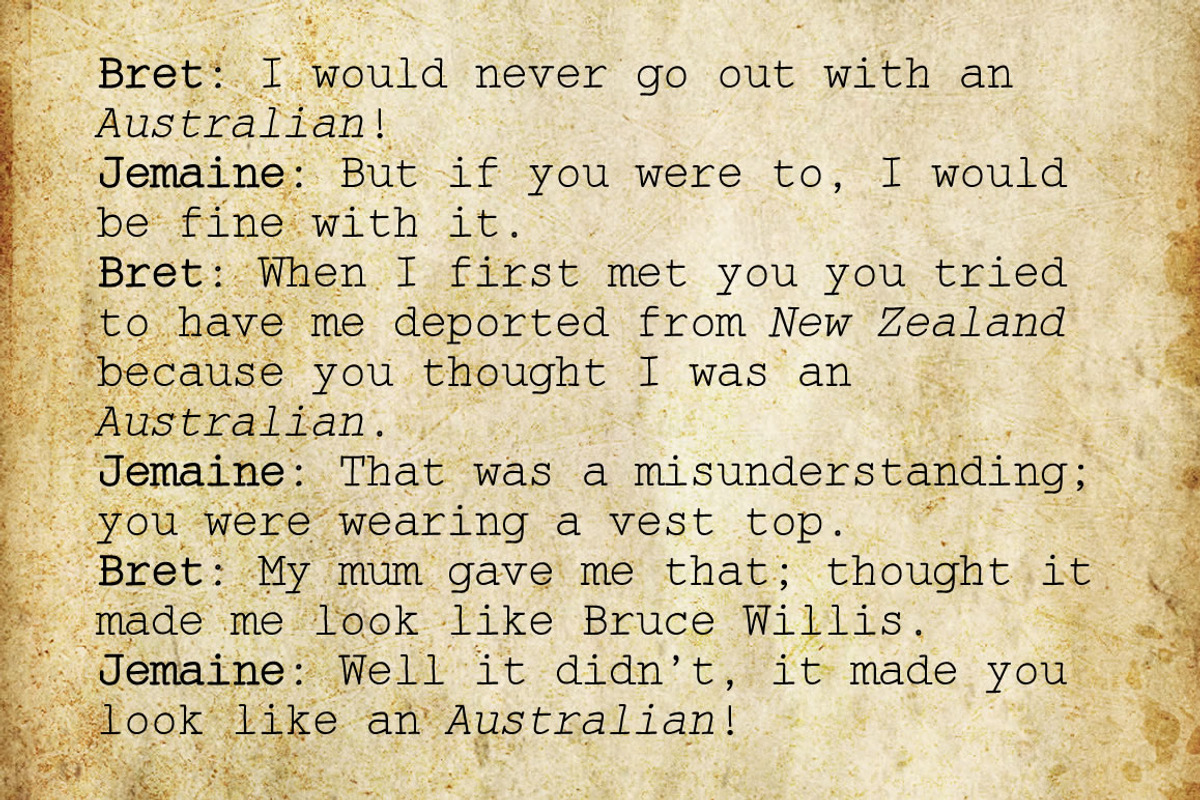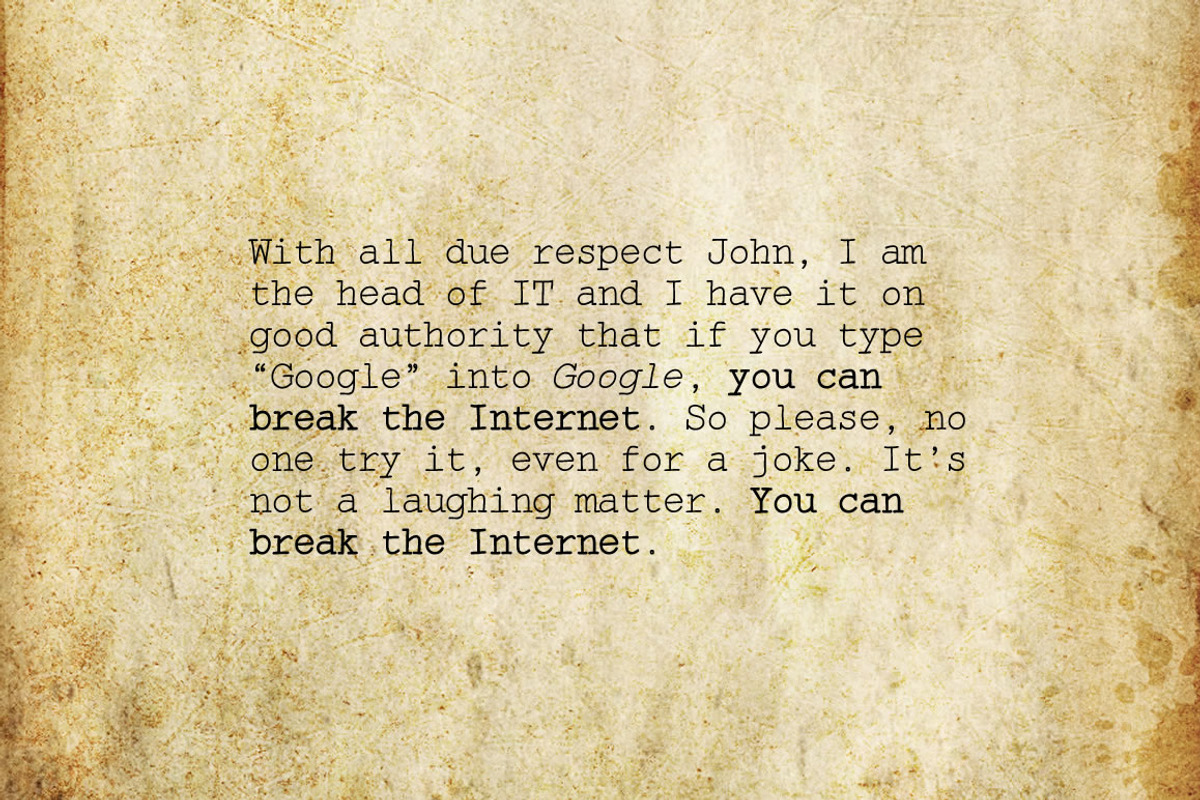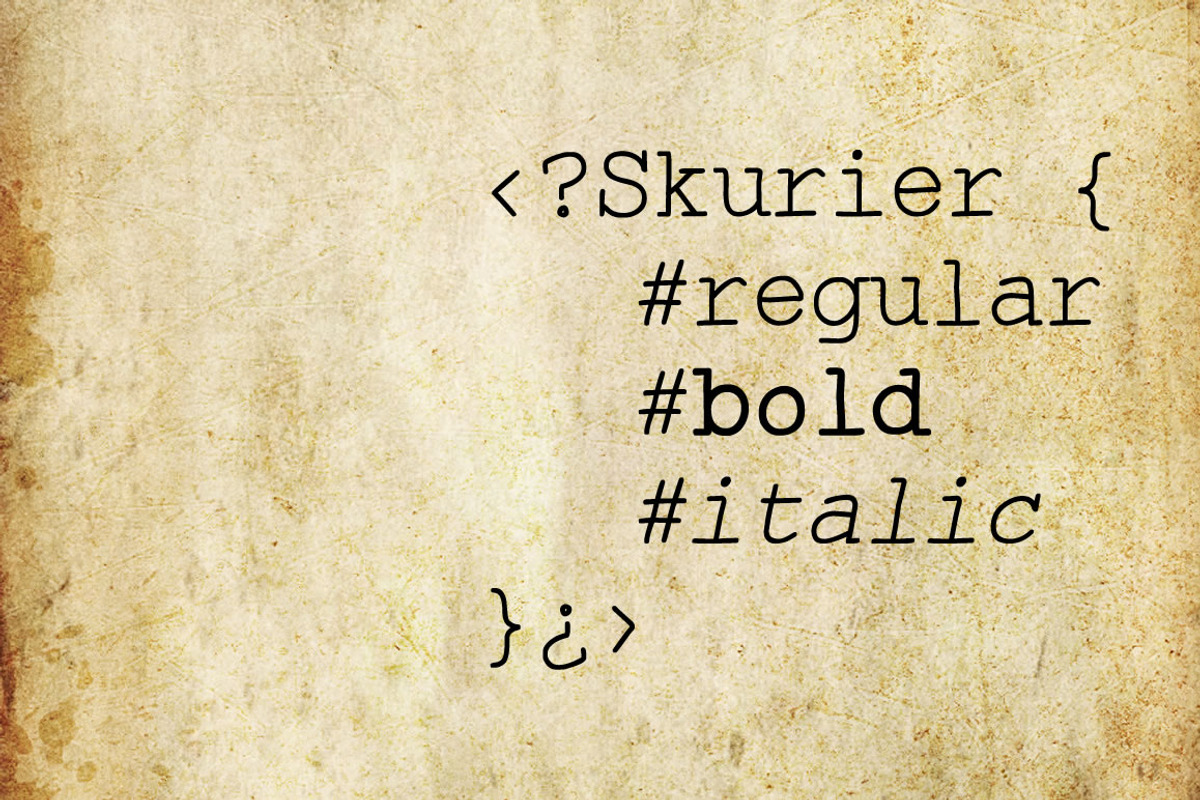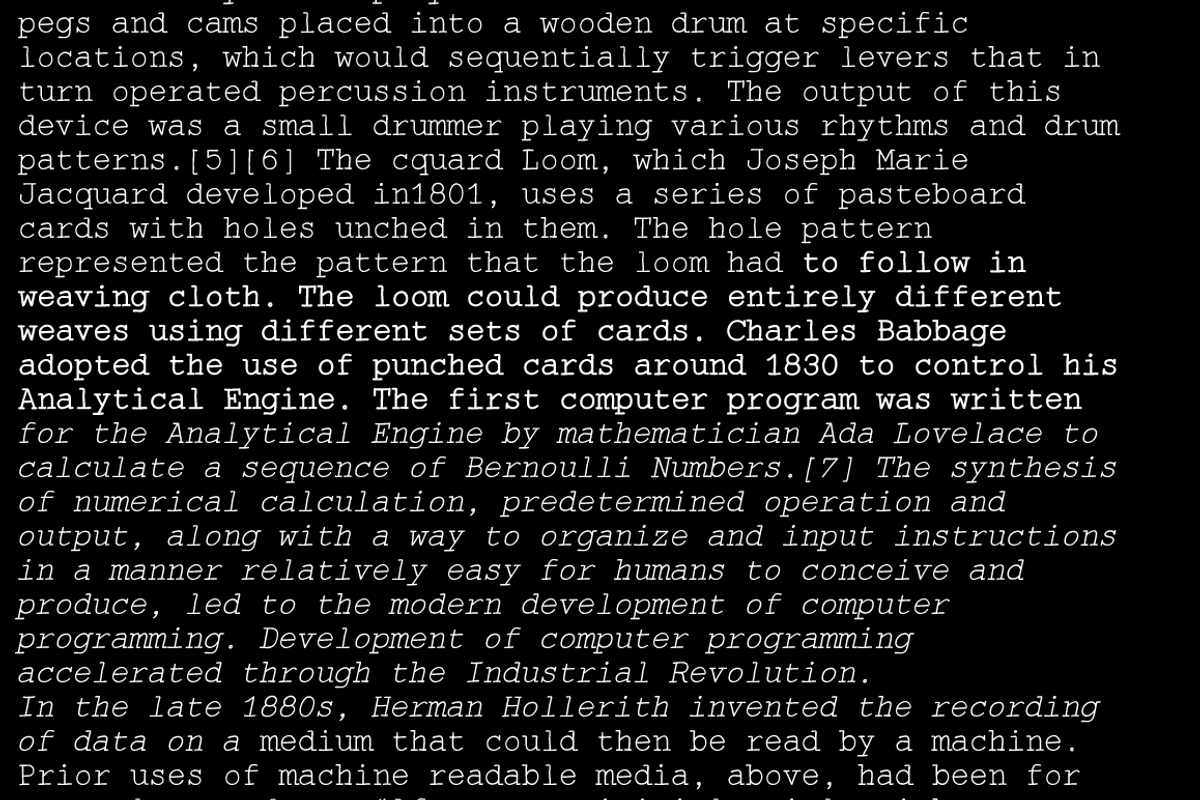
Skurier - 3 fonts
Skurier - 3 fonts by Leitmotif is a font selected for branding, posters, packaging, typography.
- Language support includes Western, Central and Eastern European character sets, as well as Baltic and Turkish languages.
- Skurier Regular
- Skurier Italic
- Skurier Bold
Skurier - 3 fonts by Leitmotif fits naturally into Branding, posters, packaging, typography.